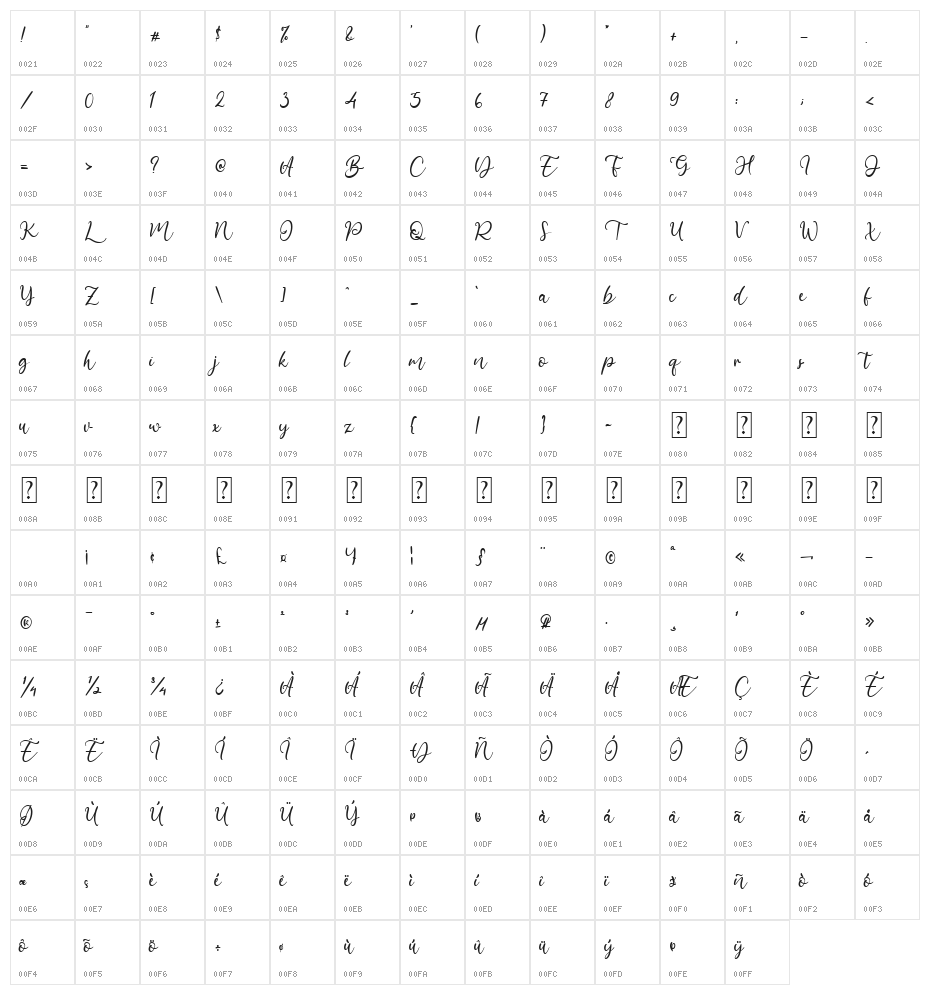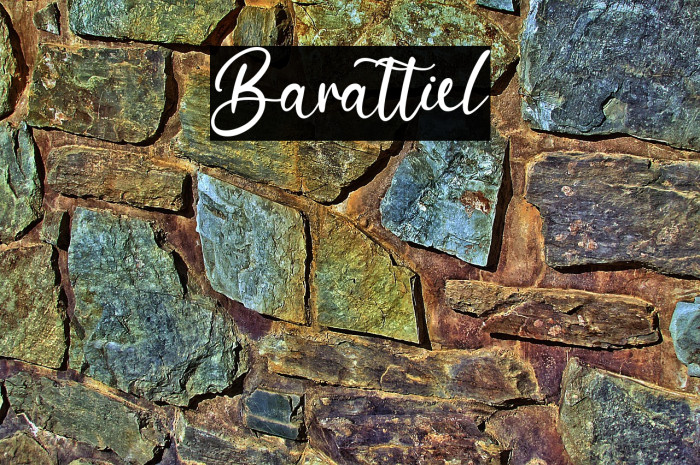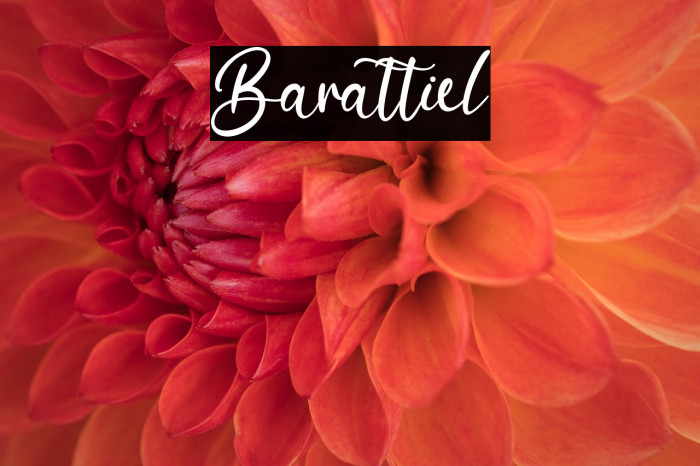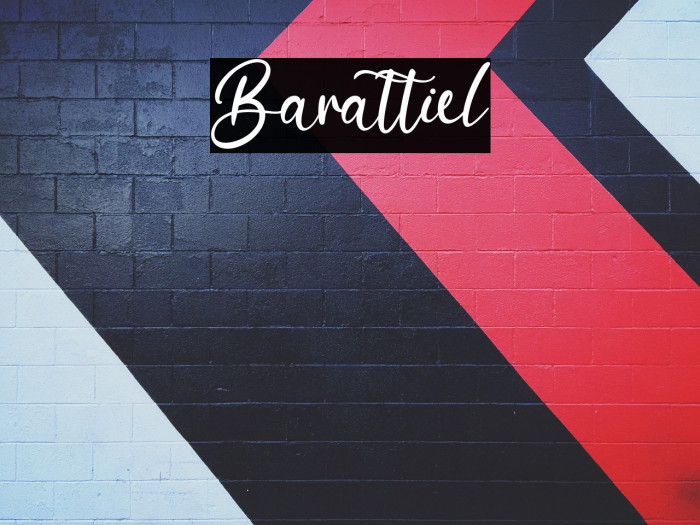
Barattiel Font
Barattiel Description
This elegant script font features flowing, cursive strokes that convey a sense of sophistication and grace. The uppercase letters are characterized by sweeping curves and flourishes, while the lowercase letters maintain a consistent flow, enhancing readability. The numerals are stylish yet clear, making them suitable for a variety of uses. Special characters are designed with the same attention to detail, ensuring a cohesive look across all glyphs. The font's overall appearance is both decorative and functional, making it ideal for projects that require a touch of elegance.
| Proposed Projects | Ideal for wedding invitations, elegant branding, greeting cards, and upscale packaging design. |